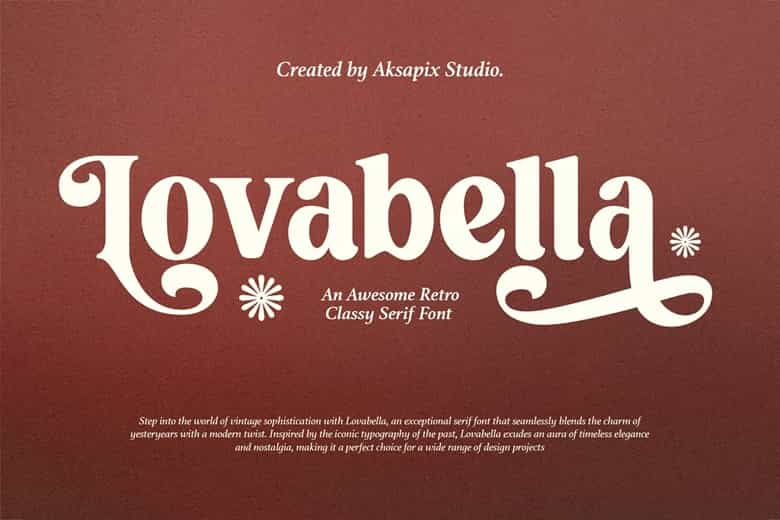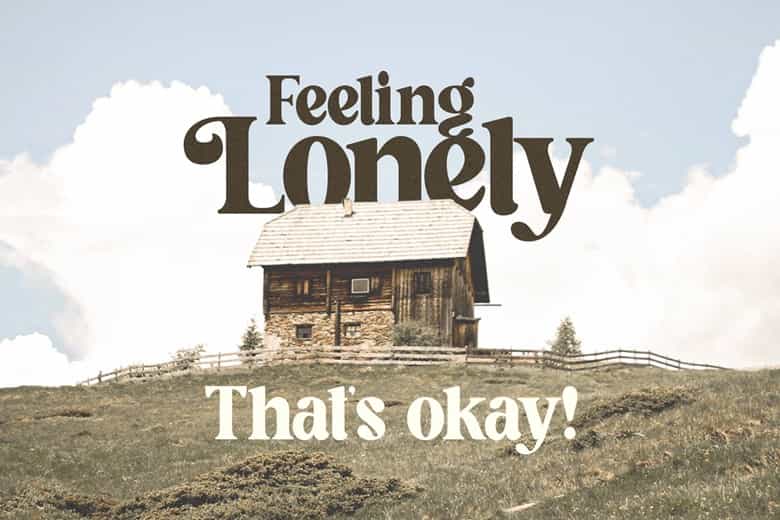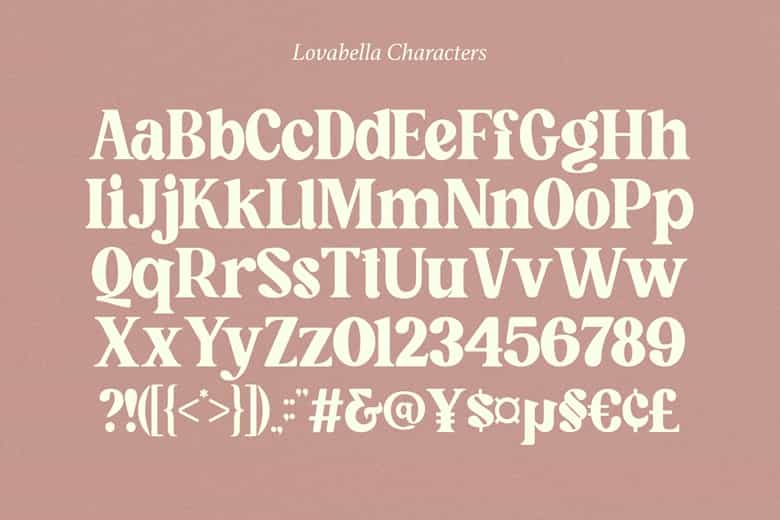
Introducing Lovabella – a new modern vintage serif font that will make you fall in love with retro style, elegant and charming. Taking its cue from the great typography of the past, Lovabella brings a touch of yesteryears charm to your creations.